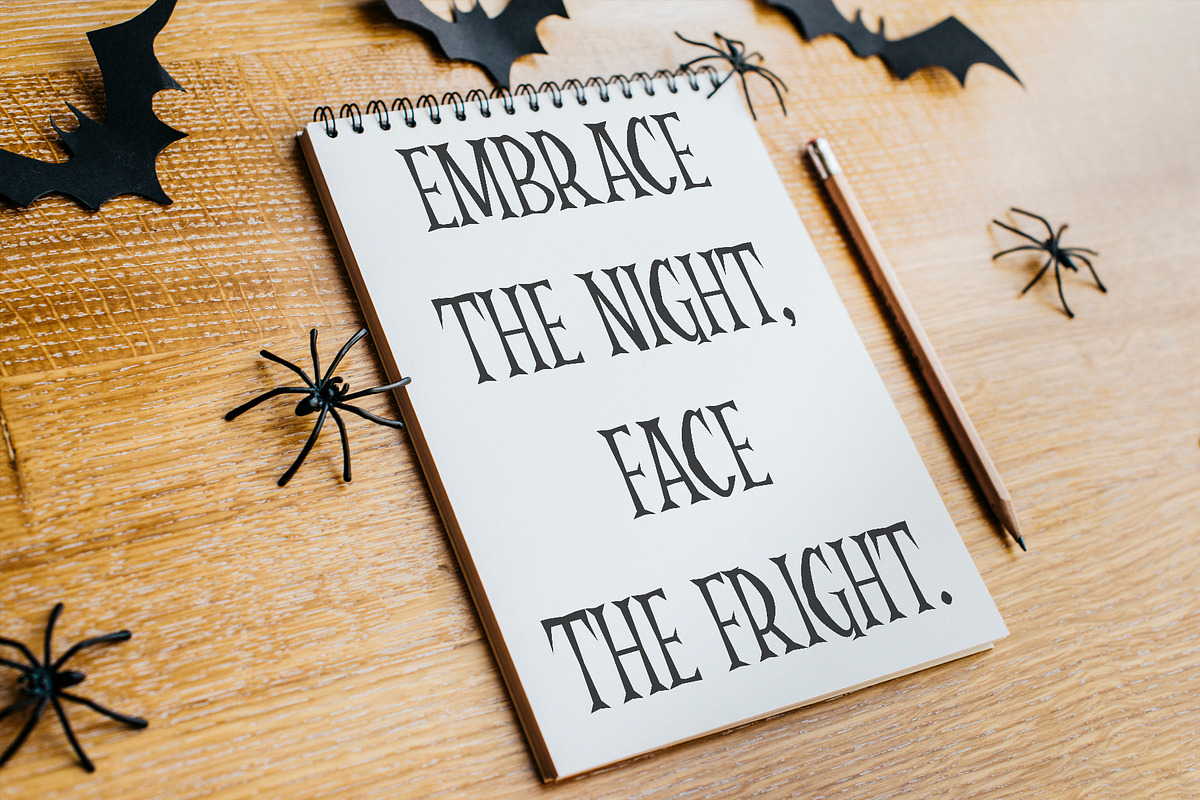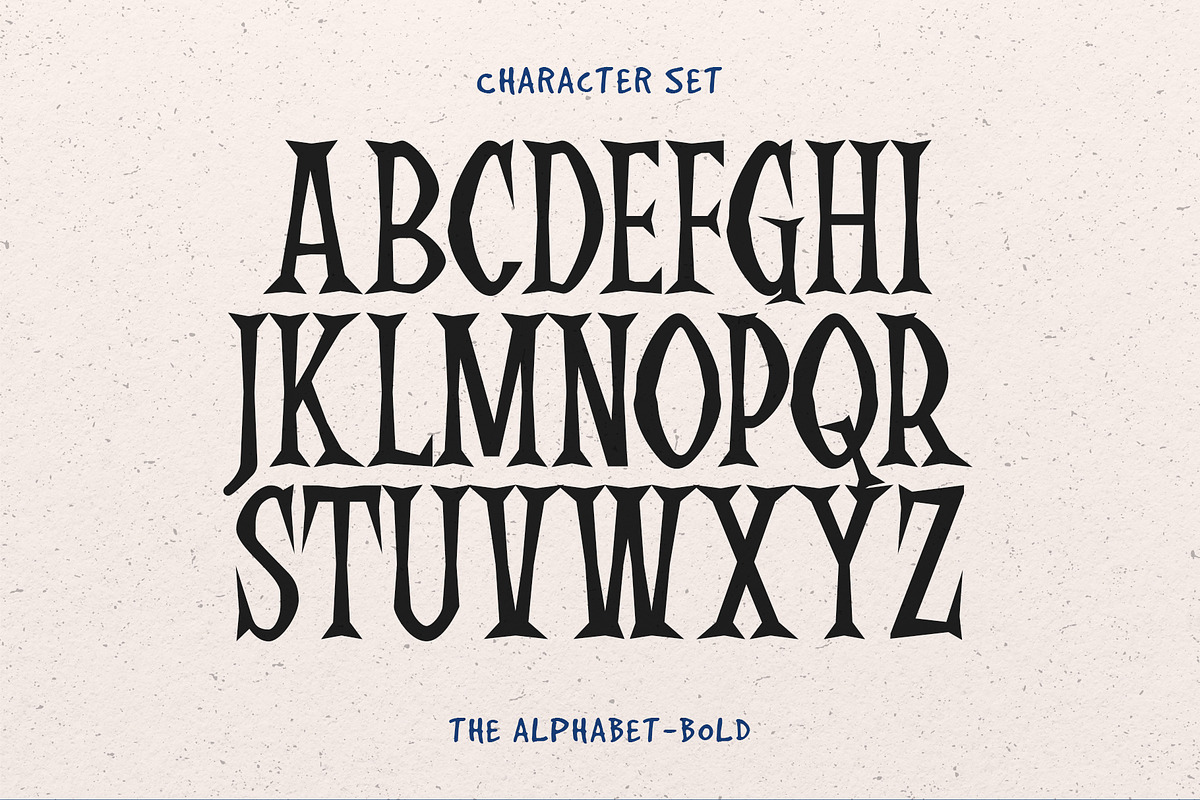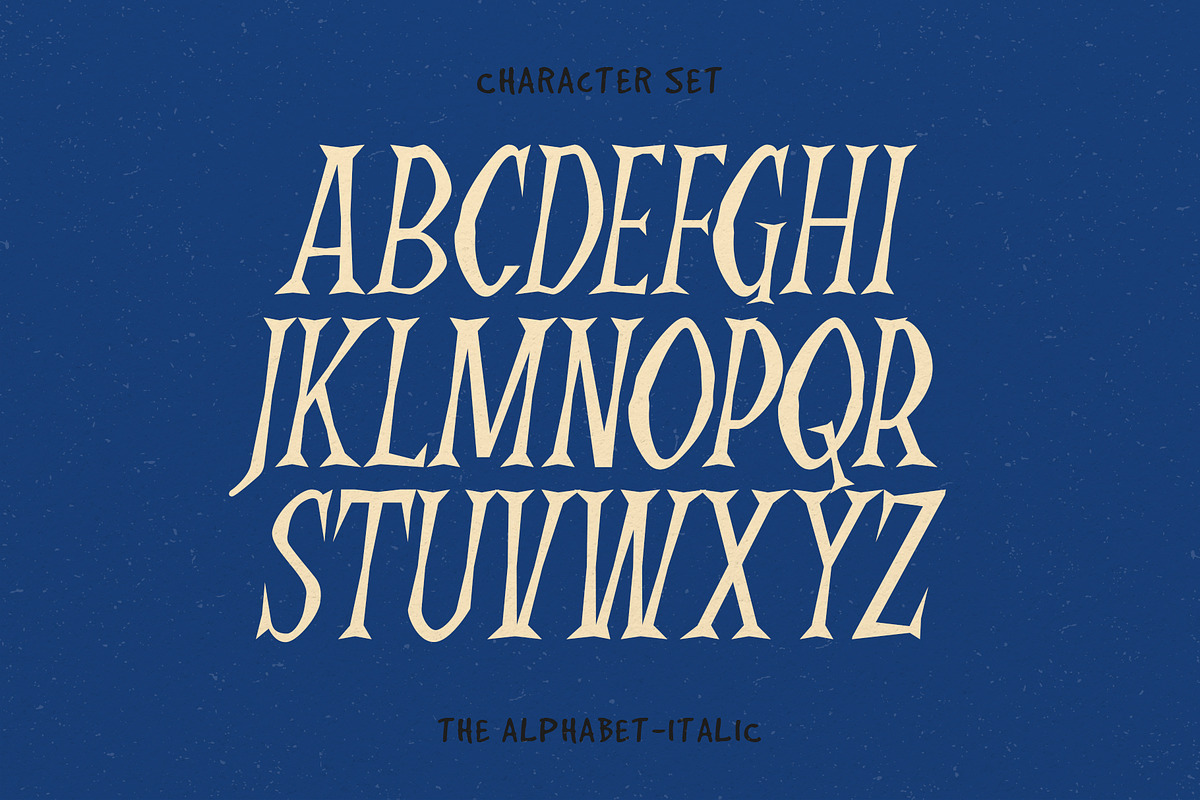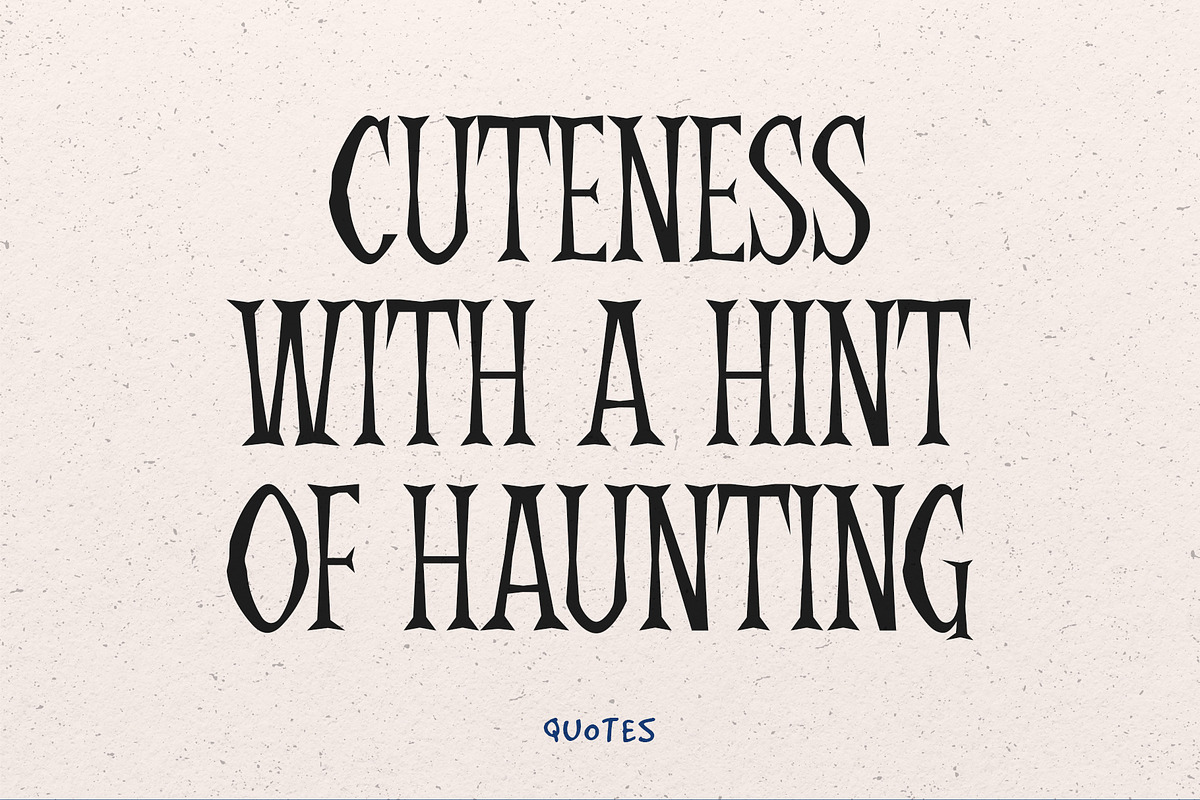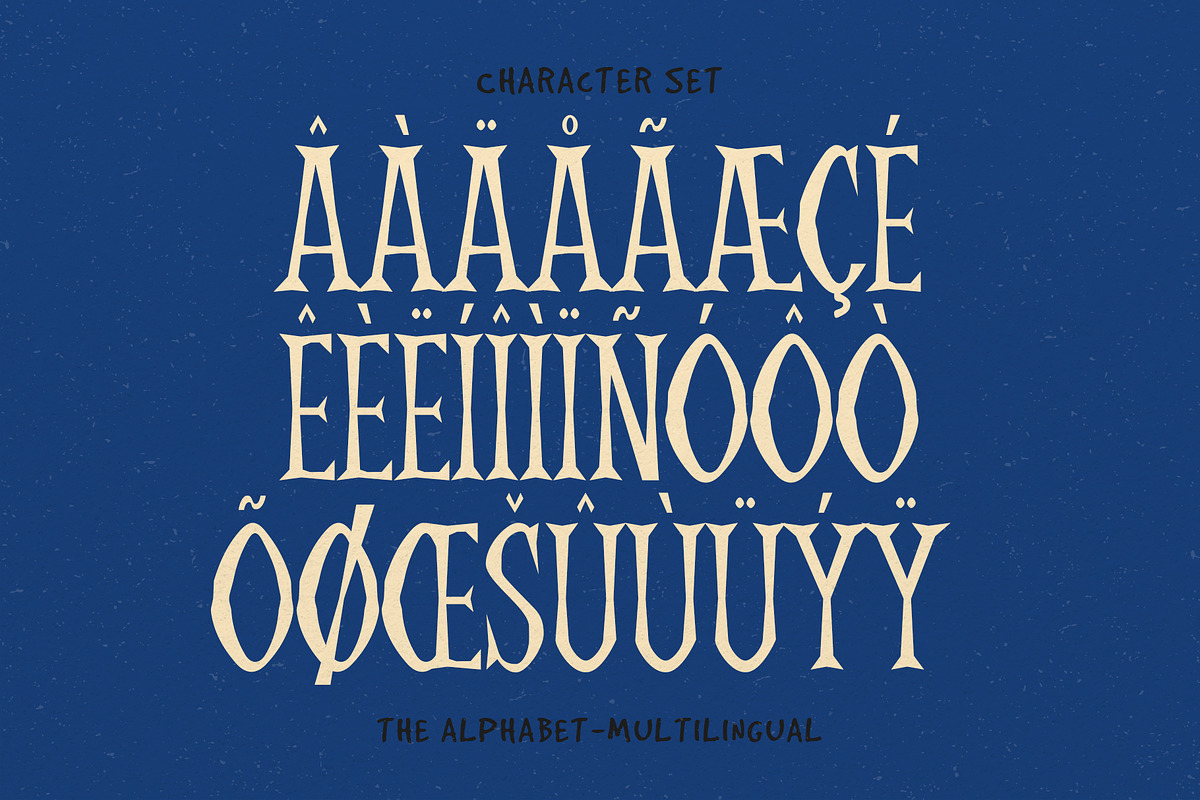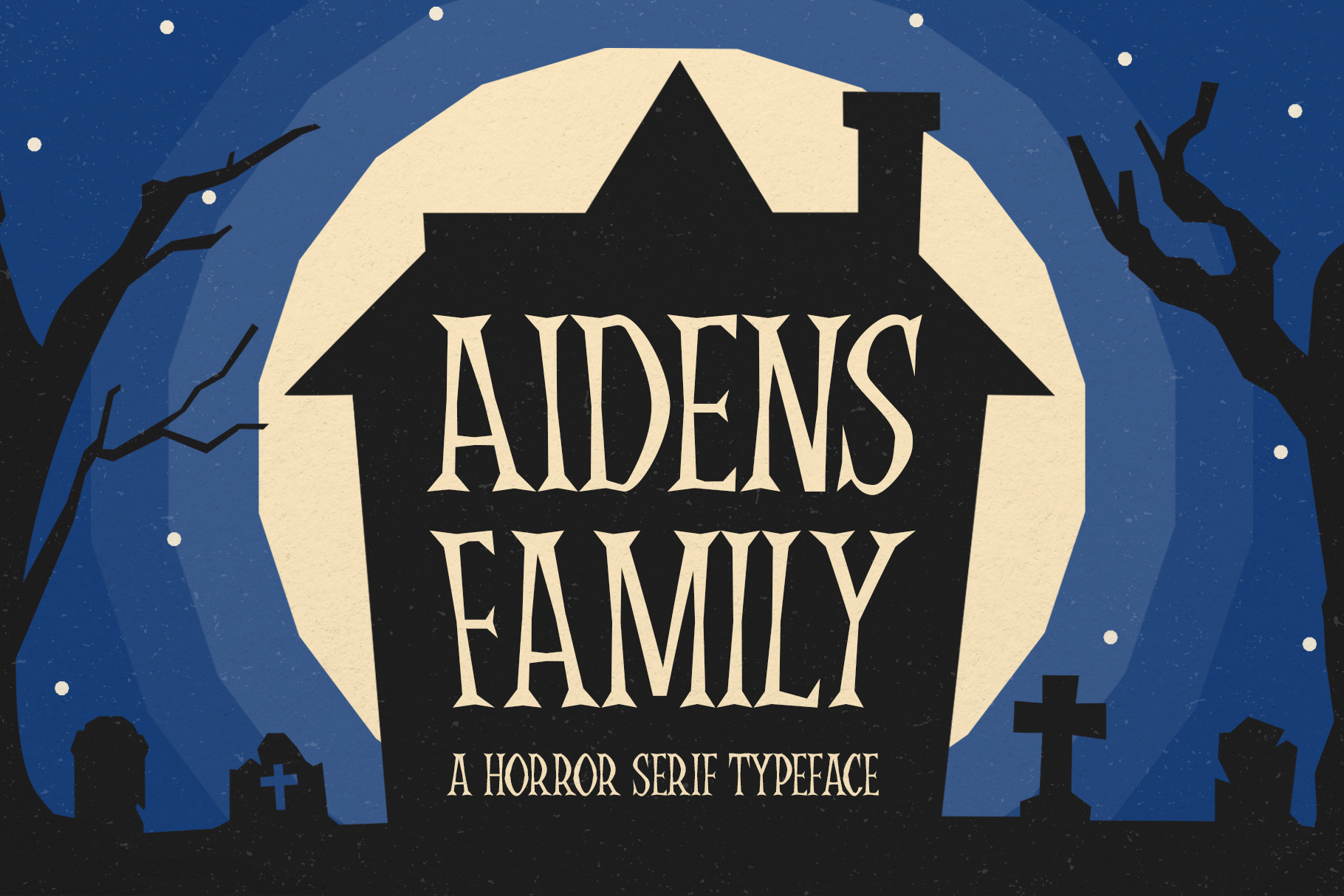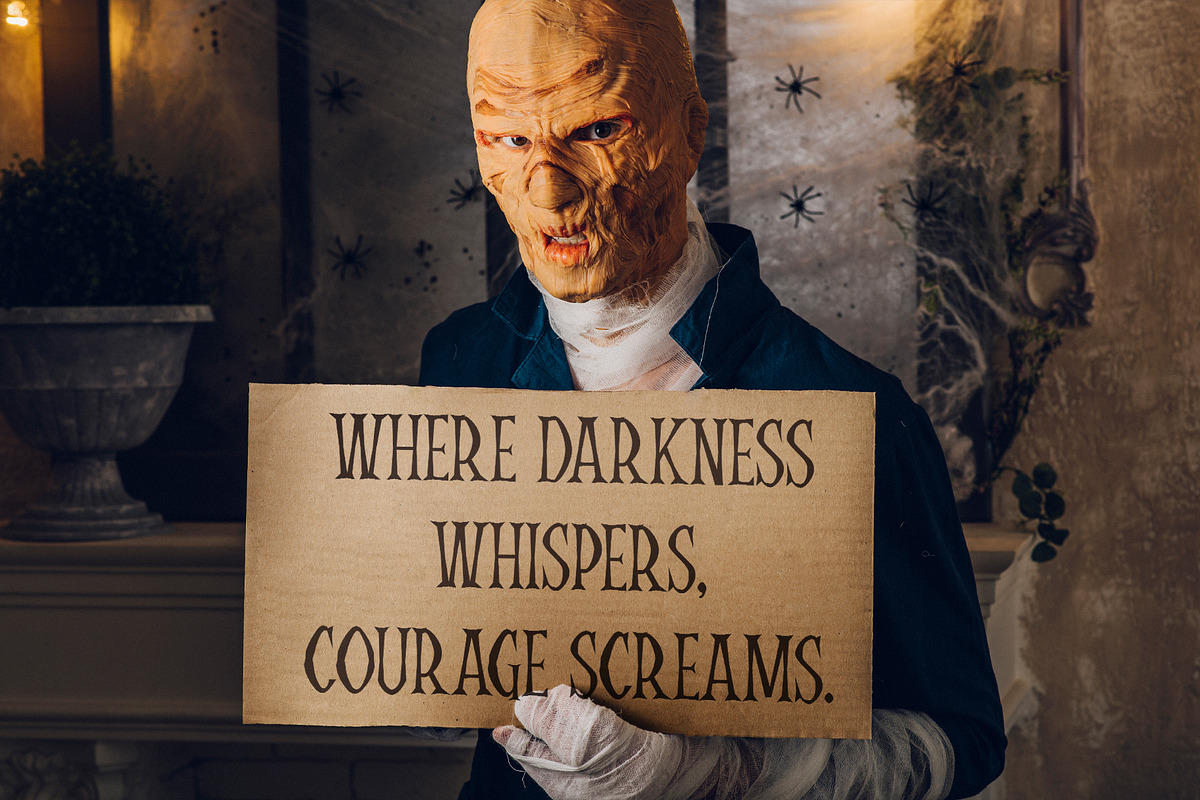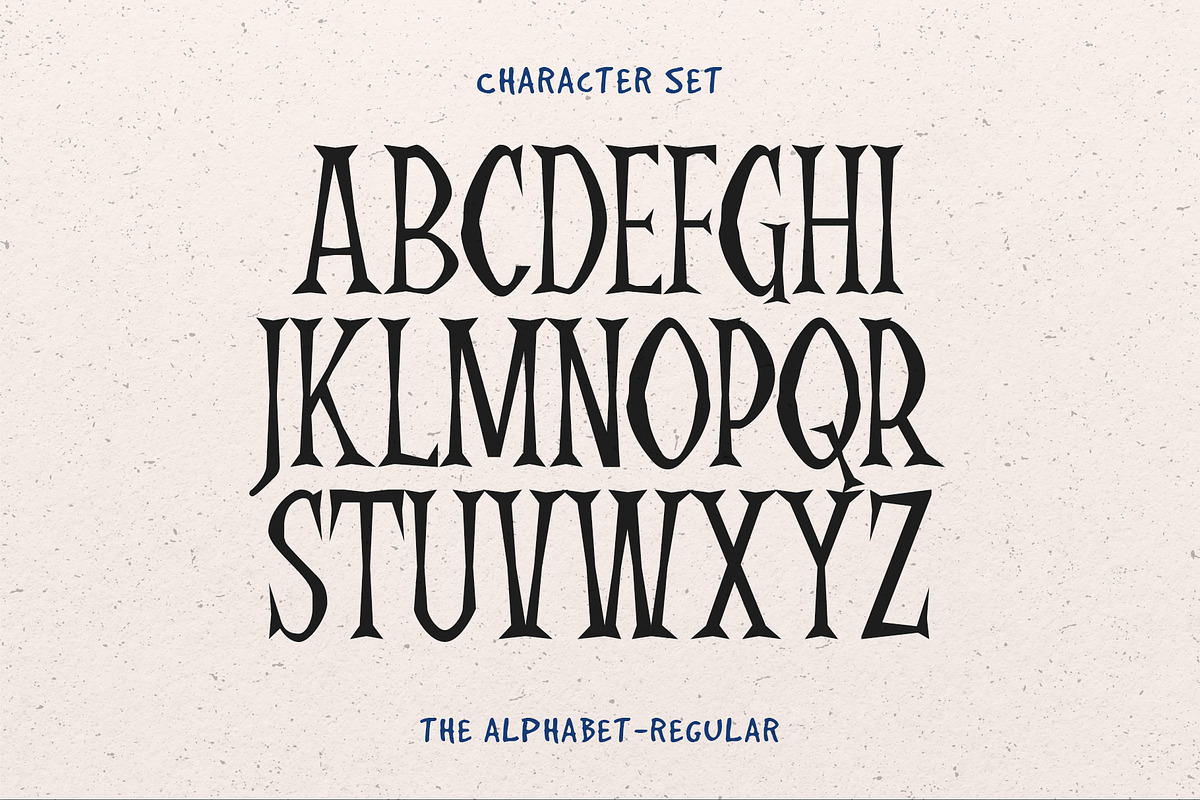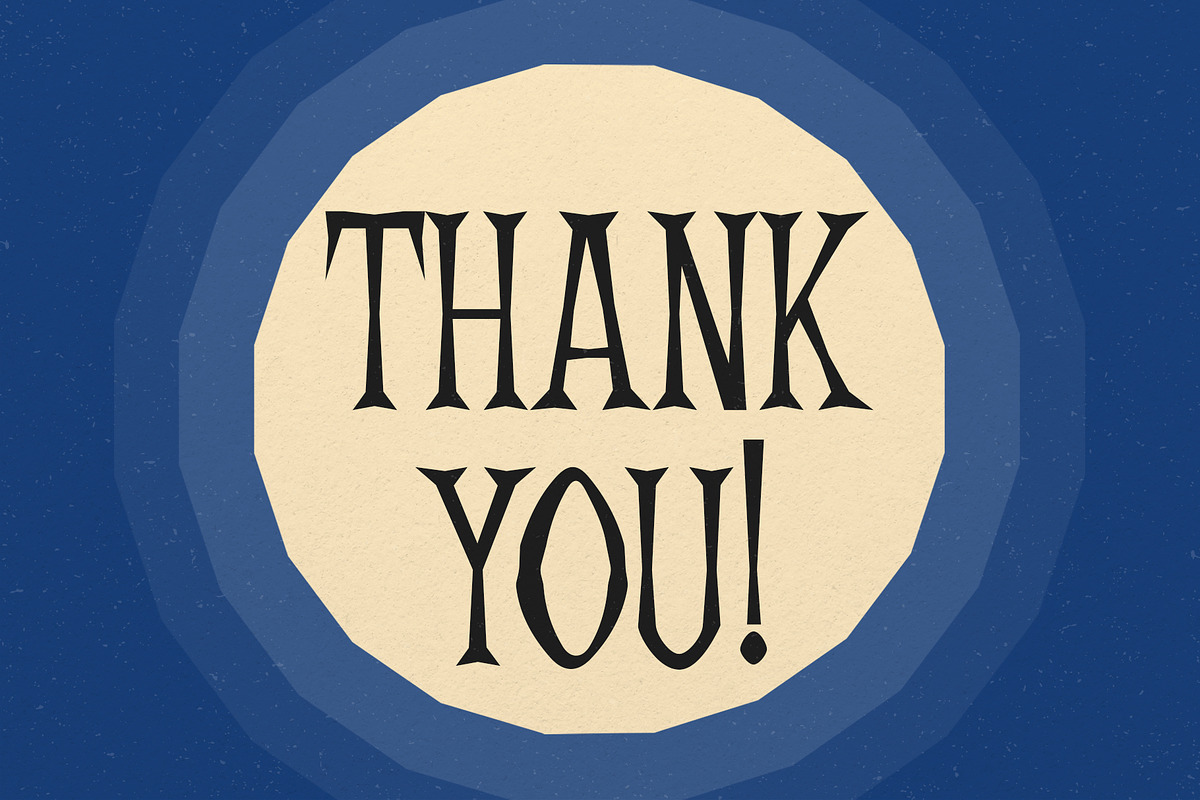
Aidens Family Font - Horror Font
Aidens Family is a hauntingly captivating font product that immerses users in the chilling realm of horror and the supernatural. This typeface available in SVG format, compatible with advanced tools such as Cricut and Glowforge, and for use in Procreate. With an eerie and mysterious aesthetic, this font embodies a scary style that sends shivers down the spine.